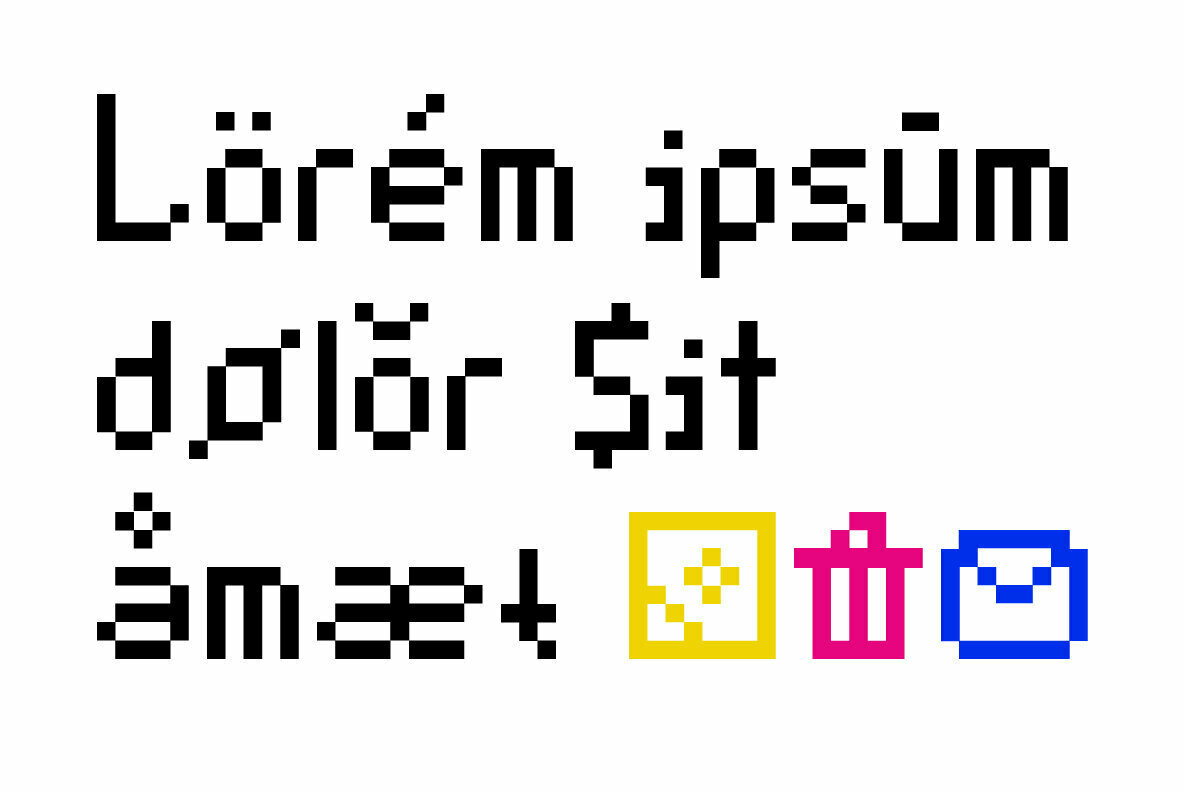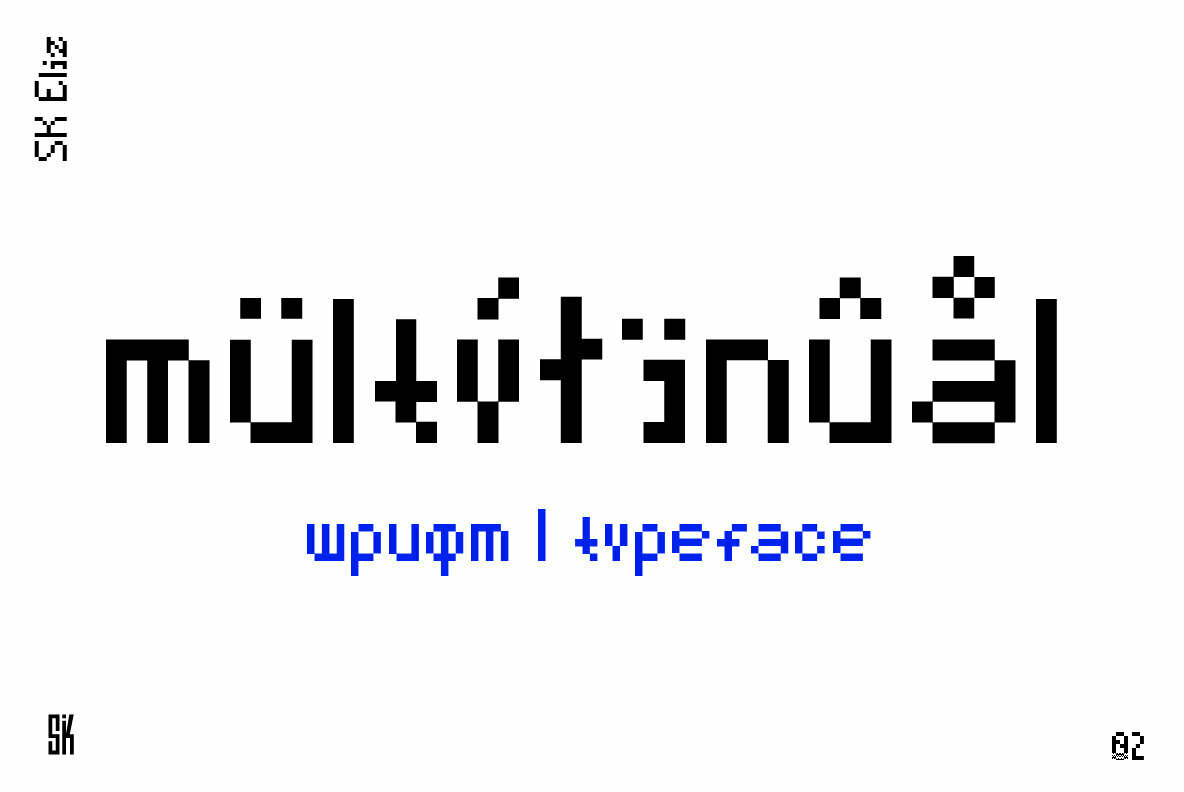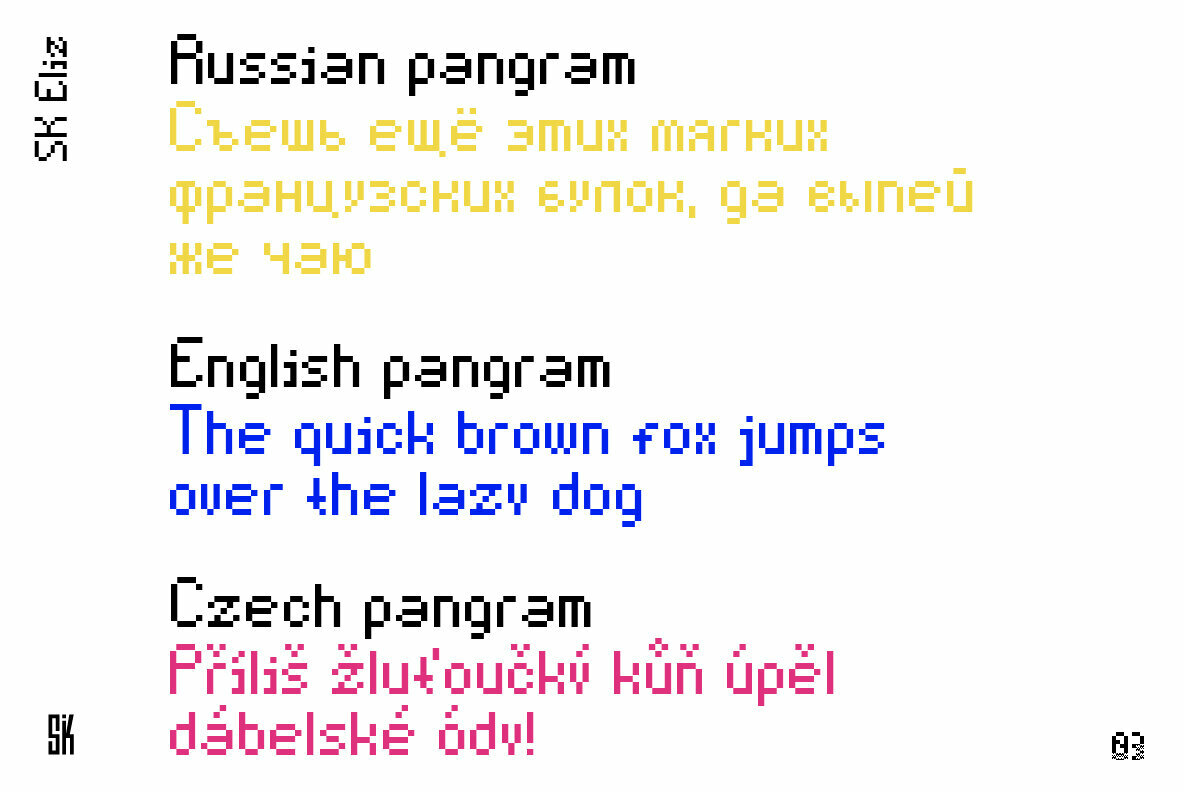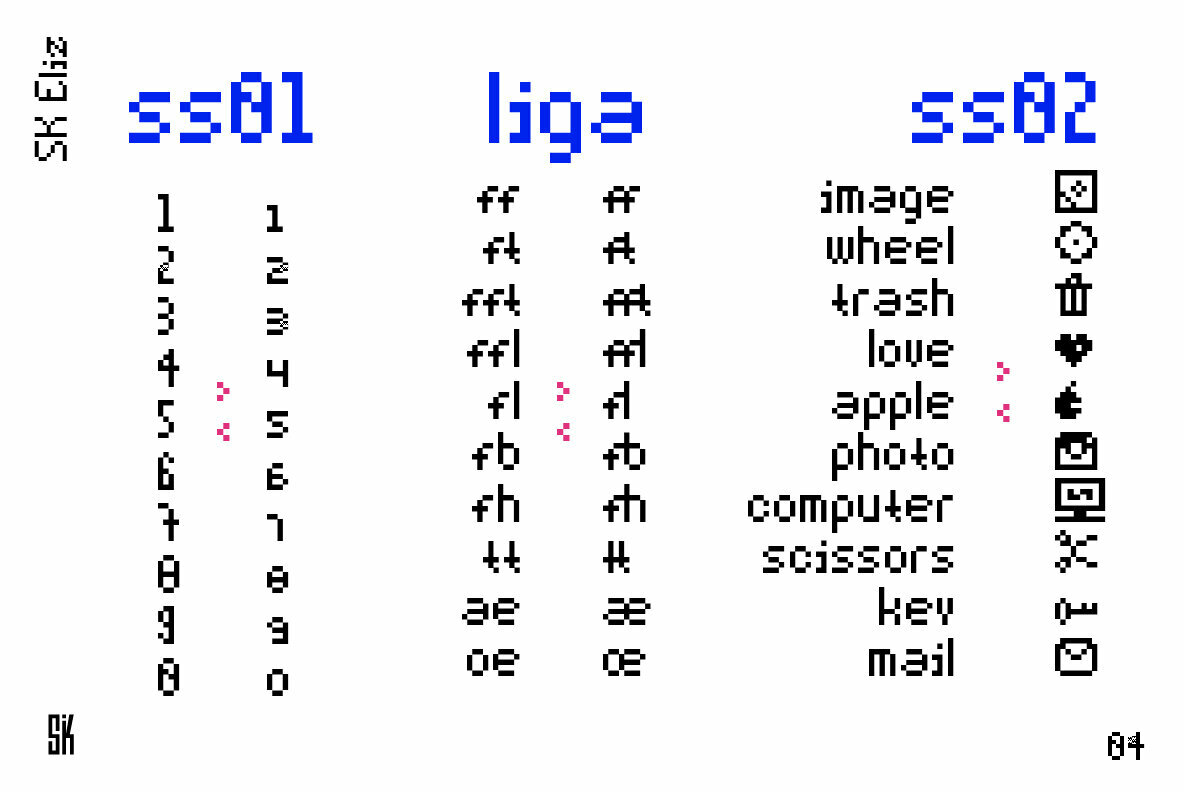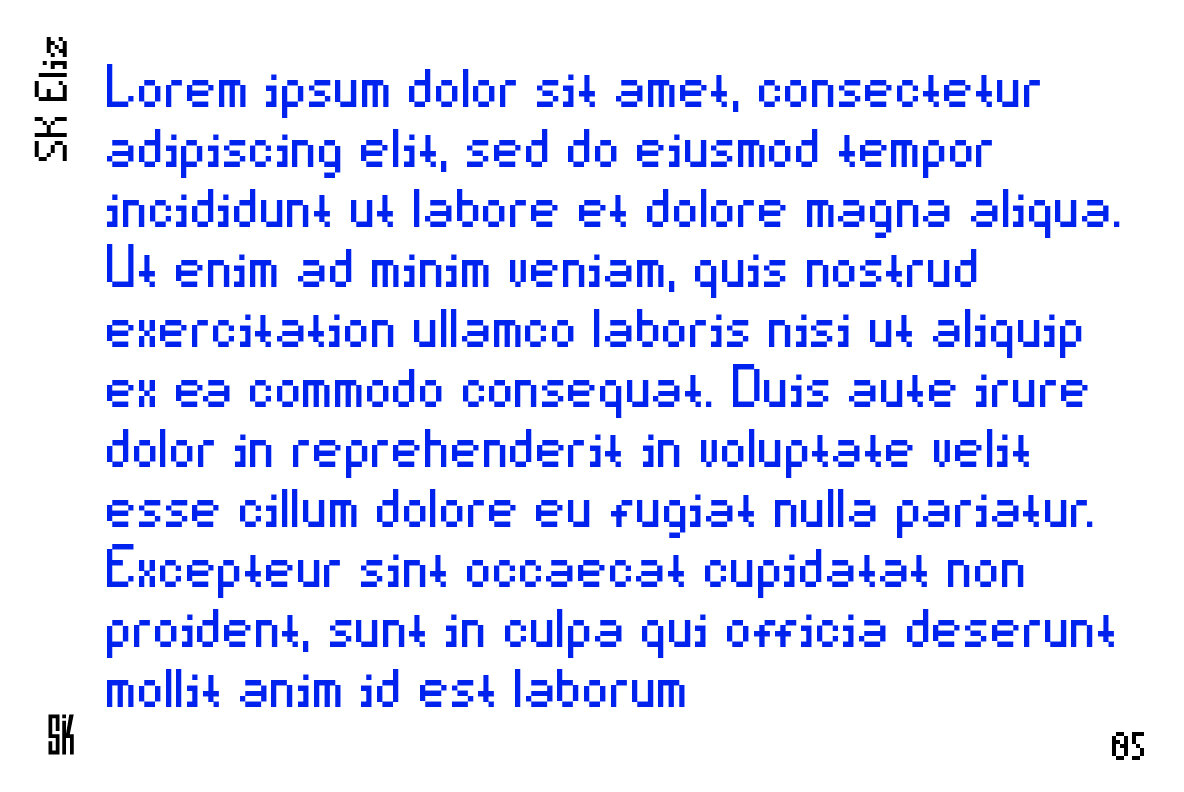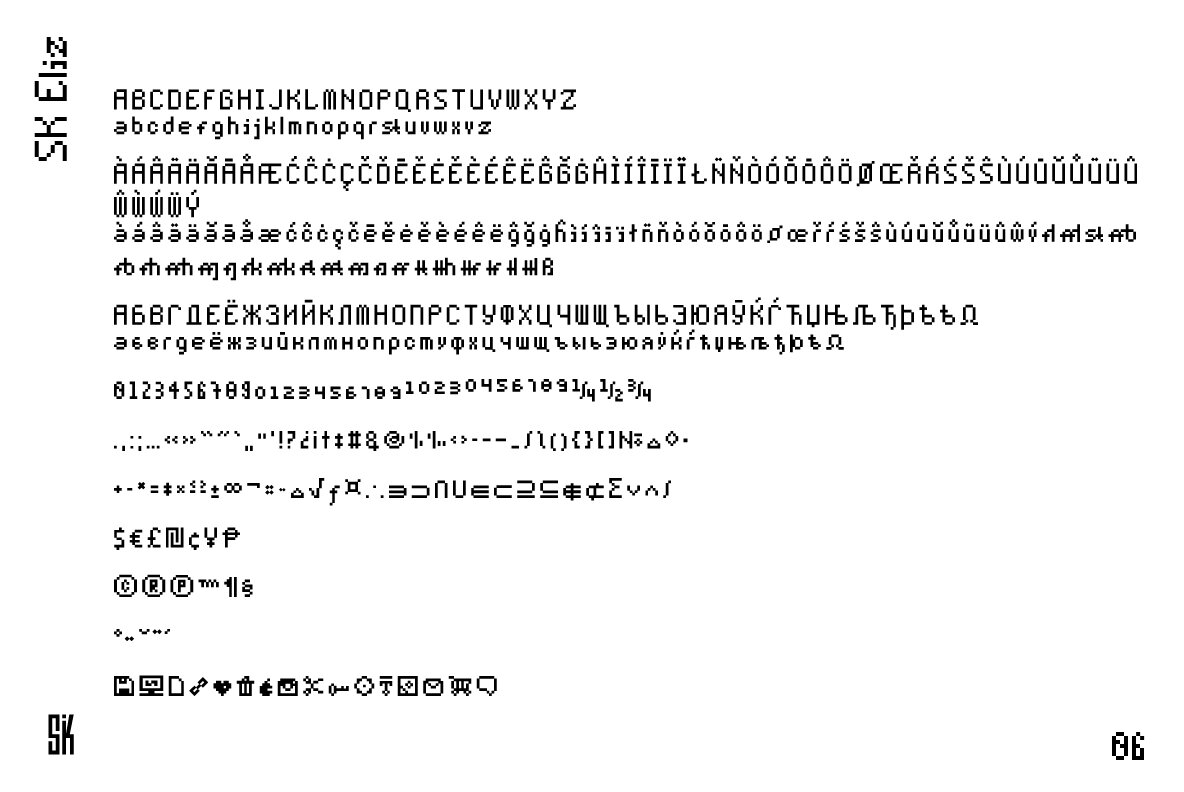
SK Eliz Font
SK Eliz is an eight-bit old-school geometric typeface based on pixels. Despite the old school, the typeface looks modern and simple. This typeface is built on a clear geometric grid, verified to the last pixel. It is ideal for design works in the old style, illustrations and for game design.
This typeface also contains a set of pixel icons for more convenient operation. There are also paired styles of numbers.
The typeface comes in one weight but it has 850 glyphs which supports classical Latin, Cyrillic and most European languages.